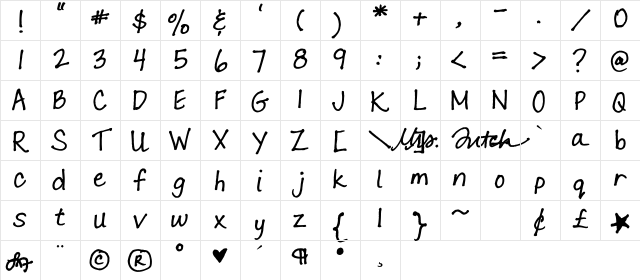
Lara Prints Regular
Design Context for Lara Prints
Lara Prints is a composed and adaptable typeface that performs quietly and consistently across a wide range of design contexts.